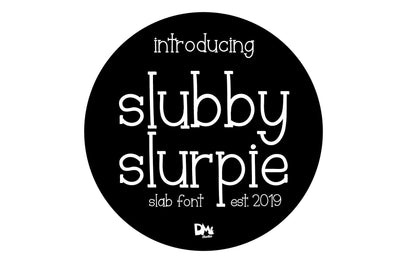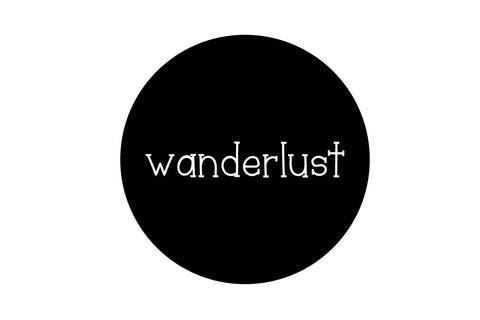
Slubby Slurpie - Stylish Slab Font
Introducing, Slubby Slurpie Slab serif Font.
This is a stylish, modern, and simple font. Great for any designs, such as product branding, label, tagging, posters, headers, magazine, social media posts, cards, packaging, souvenirs, stickers and many more.